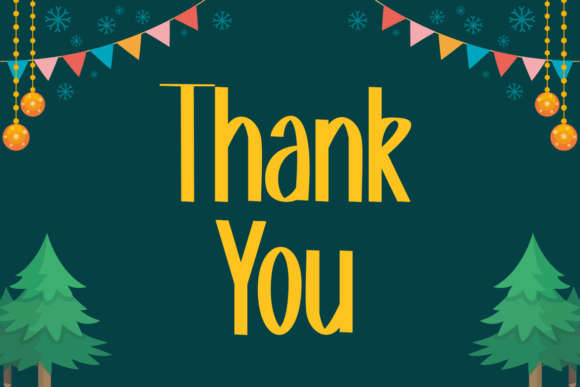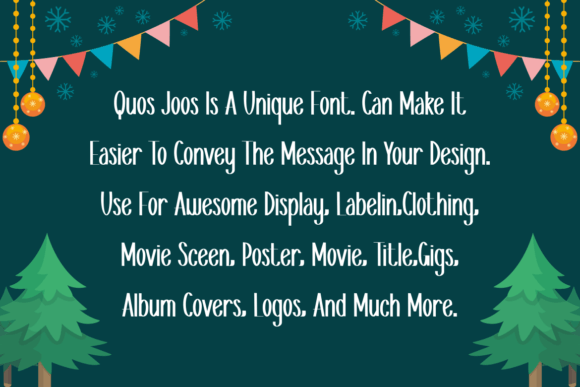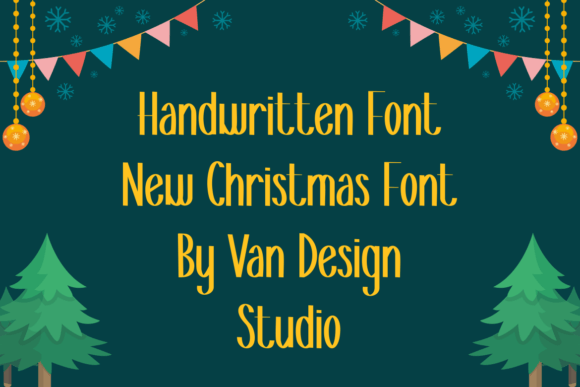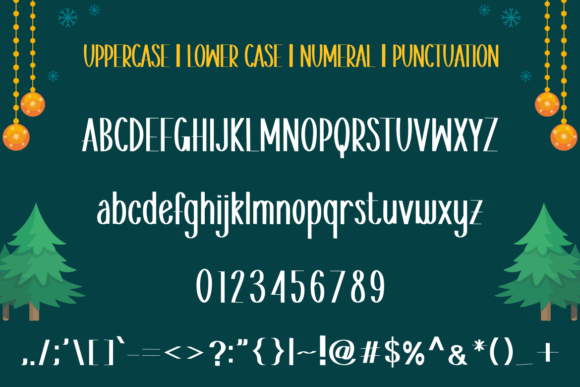
Introduction to Quos Joos Font Font
Fonts play a crucial role in design, and the Quos Joos Font font is a typeface that brings both character and versatility to any project. Whether you’re working on a branding project, a website, or a print design, the Quos Joos Font font offers a unique style that can elevate your work.
Quos Joos is a sweet and friendly handwritten font.
The Quos Joos Font font is more than just a typeface – it’s a design tool that helps you communicate your message with style and clarity. Its unique character set and versatile design make it suitable for a wide range of applications, from elegant invitations to bold headlines.
With its carefully crafted letterforms and balanced proportions, the Quos Joos Font font ensures readability and visual appeal across all mediums.
The Quos Joos Font font stands out with its unique design, exceptional readability, and versatility across various design applications.